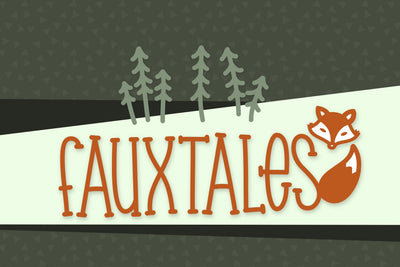
FauxTales
Faux Tales is a cute woodland themed font. This font is a single height font and includes the added tail characters. Perfect for the woodland themed projects.